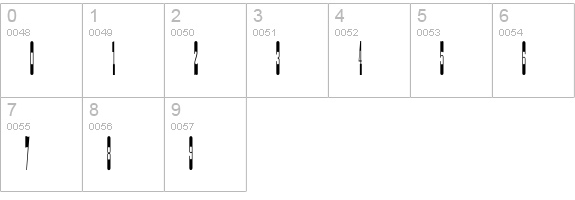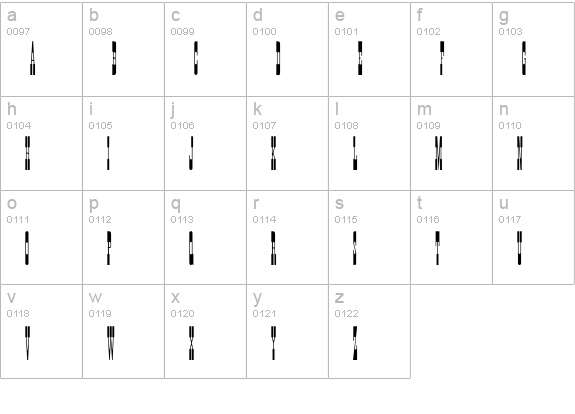
Ponderosa-Normal Font Details
Ponderosa-Normal is the standard, neutral variant in the Ponderosa typeface family \xE2\x80\x94 well suited to general body text, paragraphs, and standard typographic work.
Ponderosa-Normal font is a versatile and modern typeface that exudes sophistication and style. Its clean lines and elegant curves make it perfect for a wide range of design projects, from branding to editorial design. This font strikes the perfect balance between professionalism and creativity, making it a go-to choice for designers looking to make a statement. The Ponderosa-Normal font is not only visually stunning but also highly functional, ensuring readability across various platforms and mediums. Whether you're working on a website, magazine layout, or marketing materials, this font will elevate your design to the next level. Best of all, Ponderosa-Normal font is completely free to download at FontsMarket.com. This means you can access this premium-quality font without breaking the bank, making it a valuable addition to your font library. Don't miss out on the opportunity to enhance your designs with the Ponderosa-Normal font today!